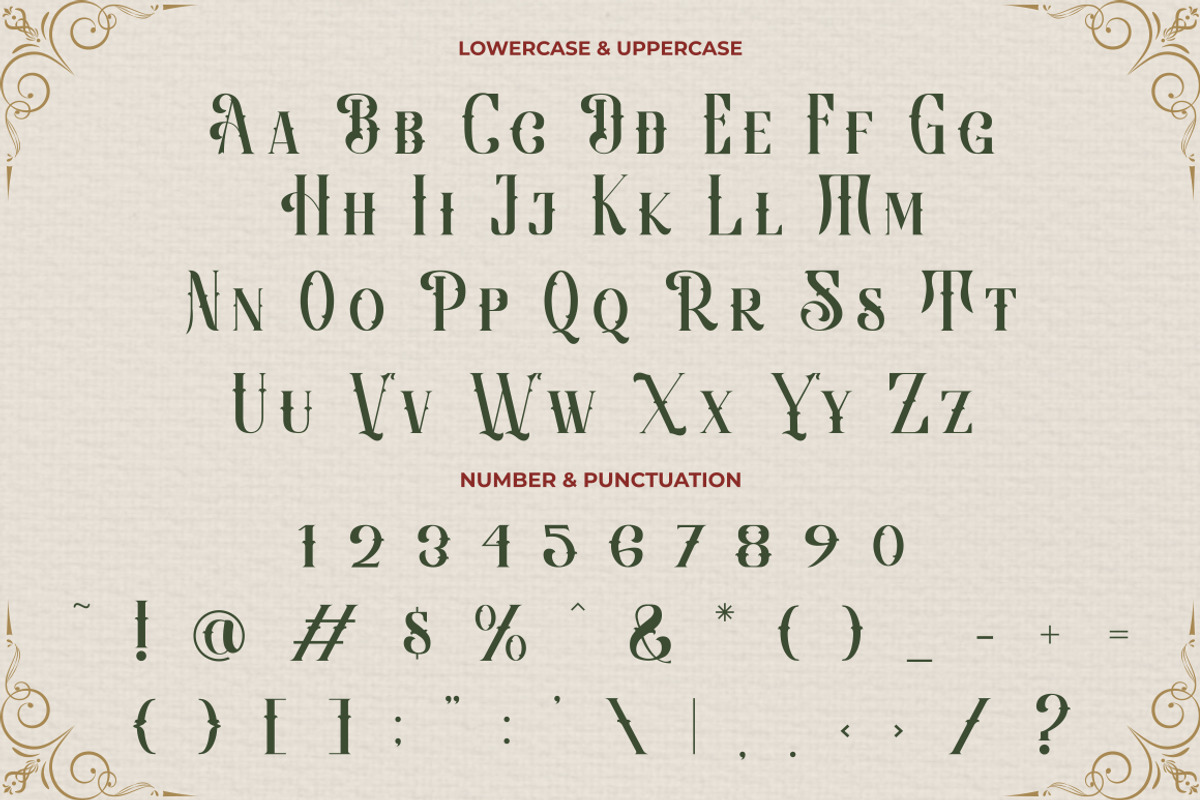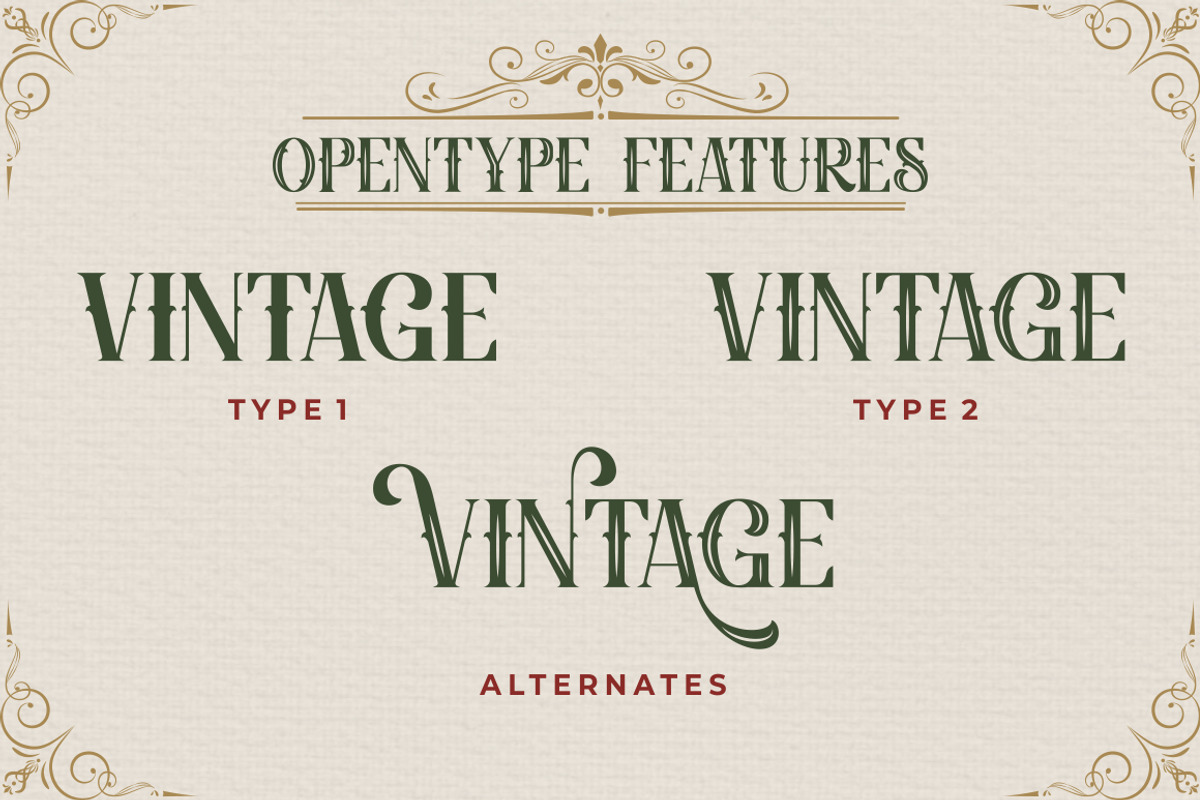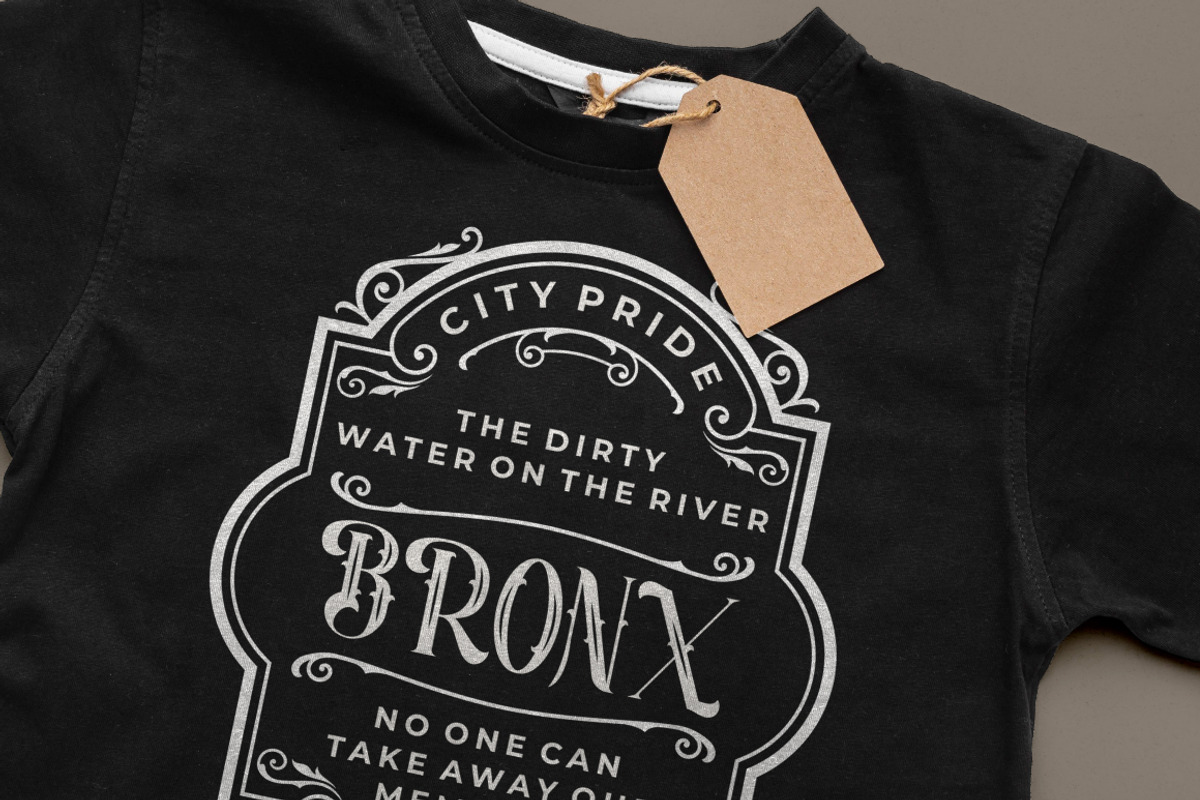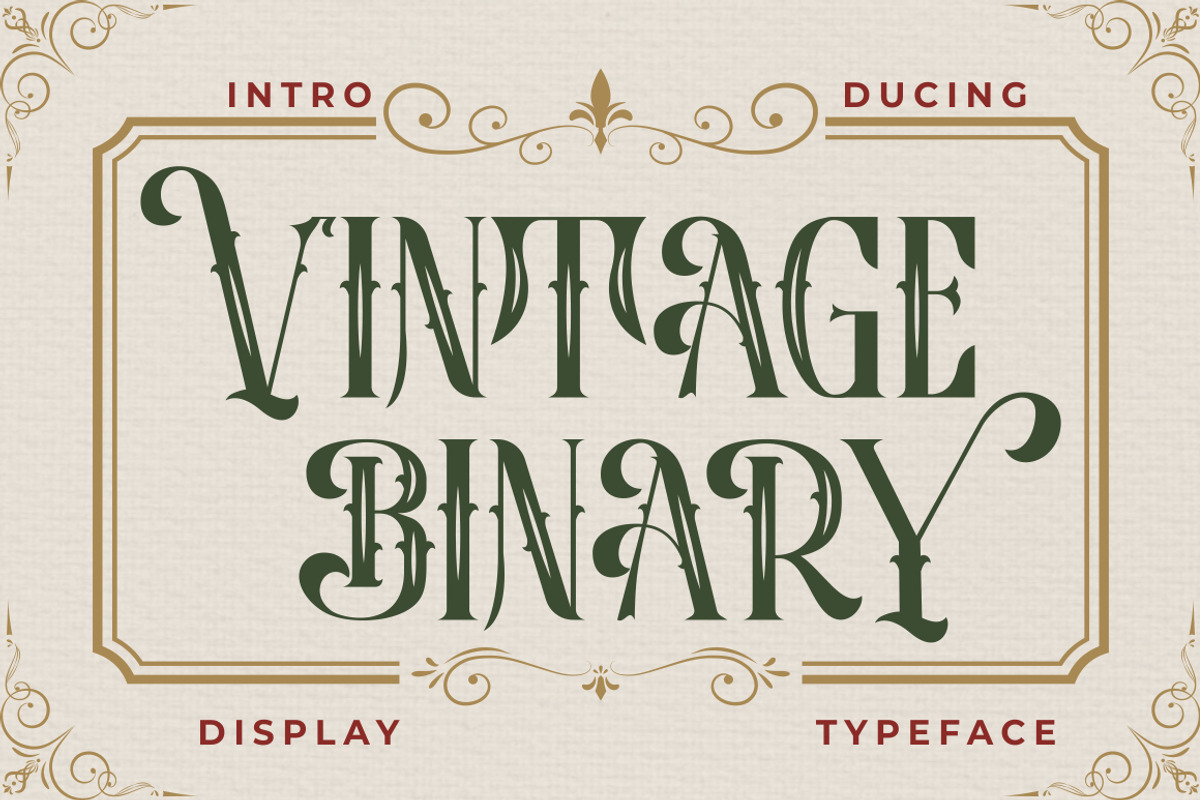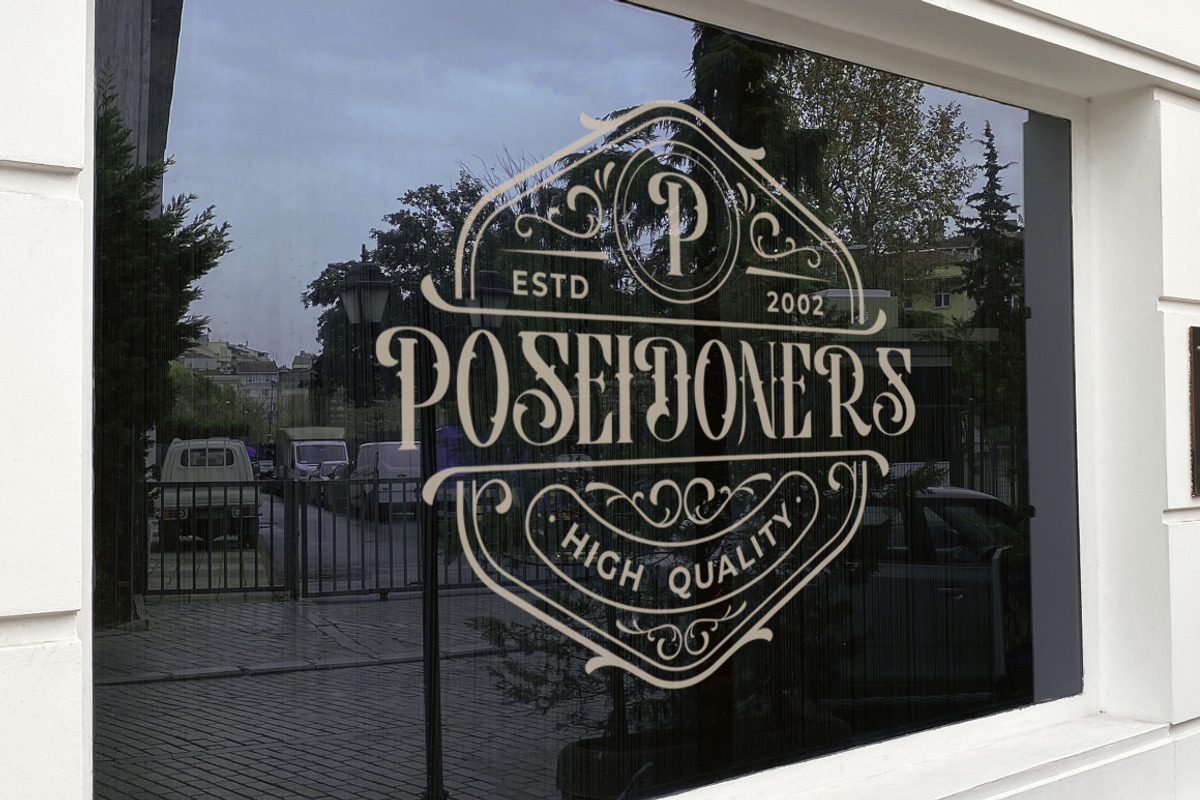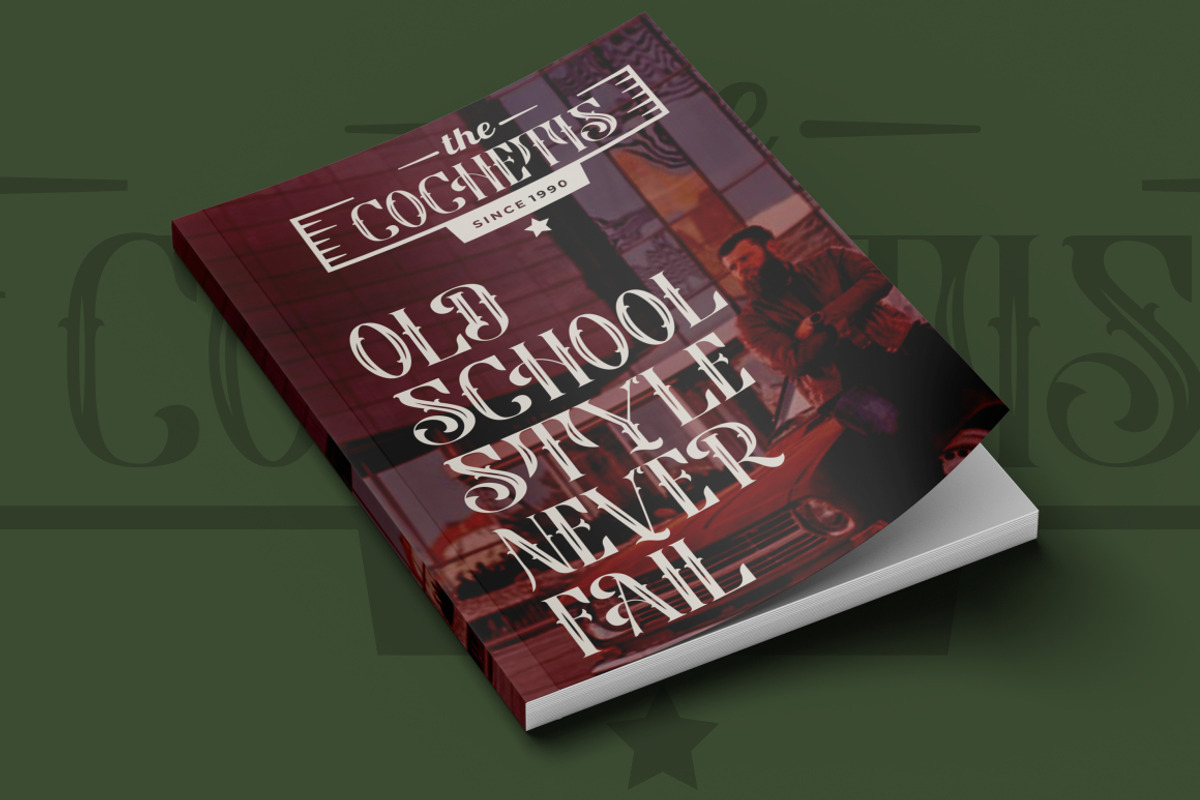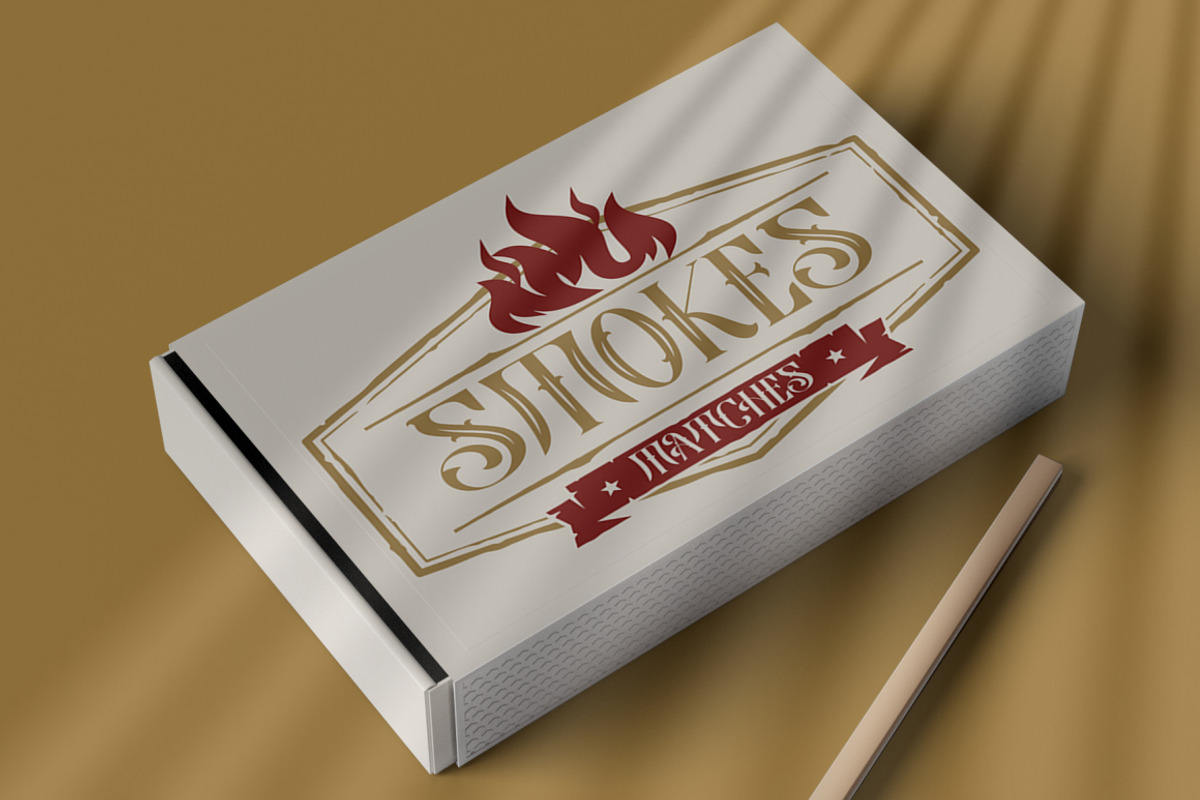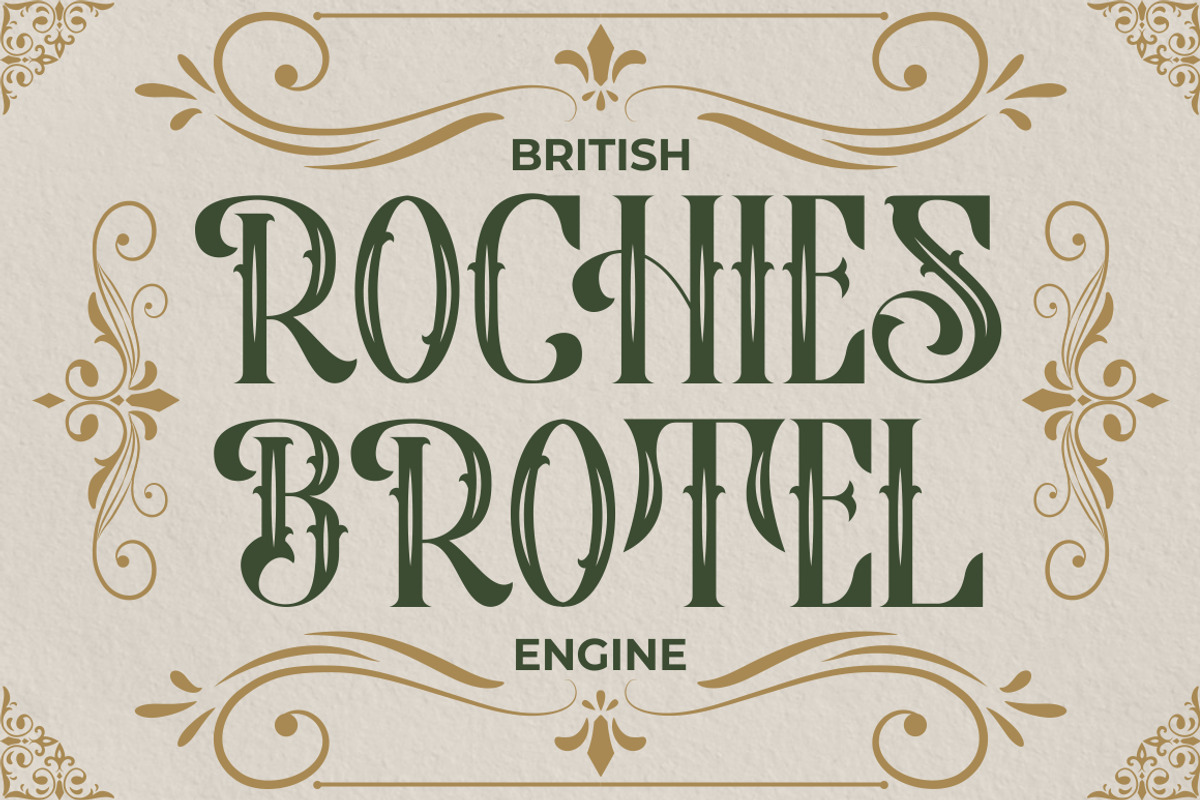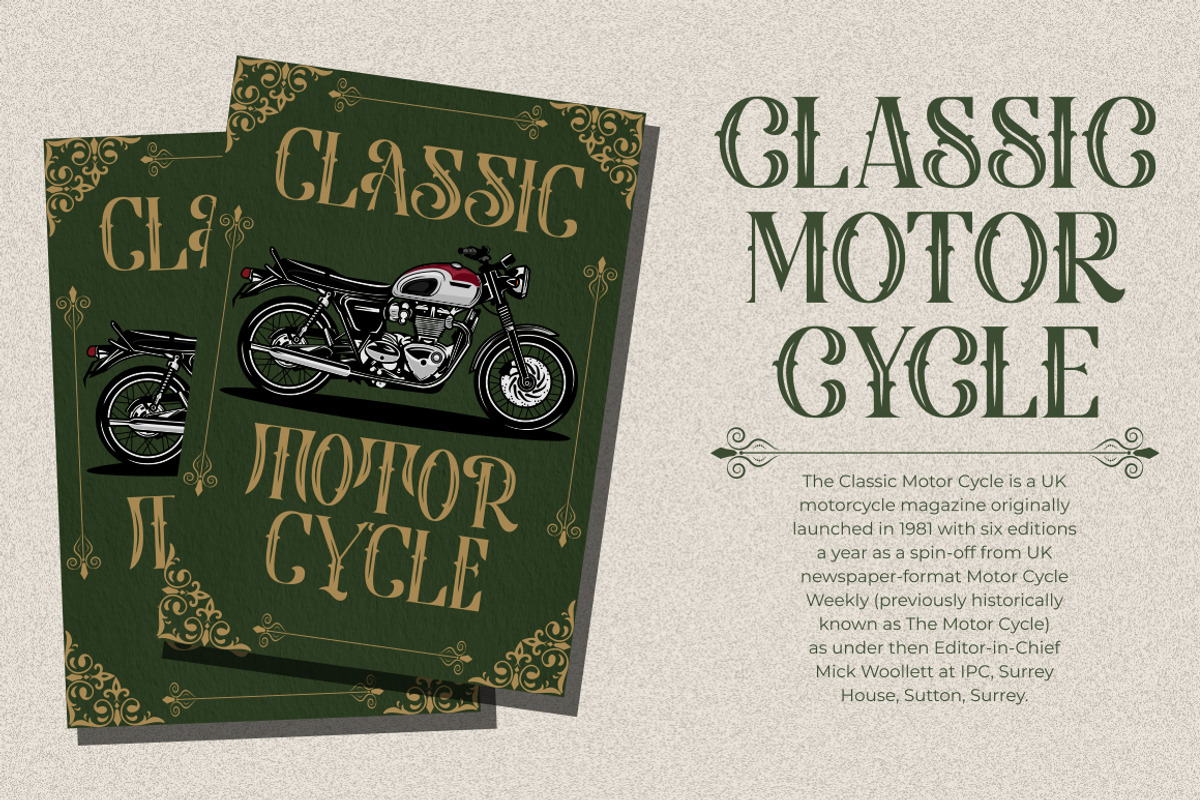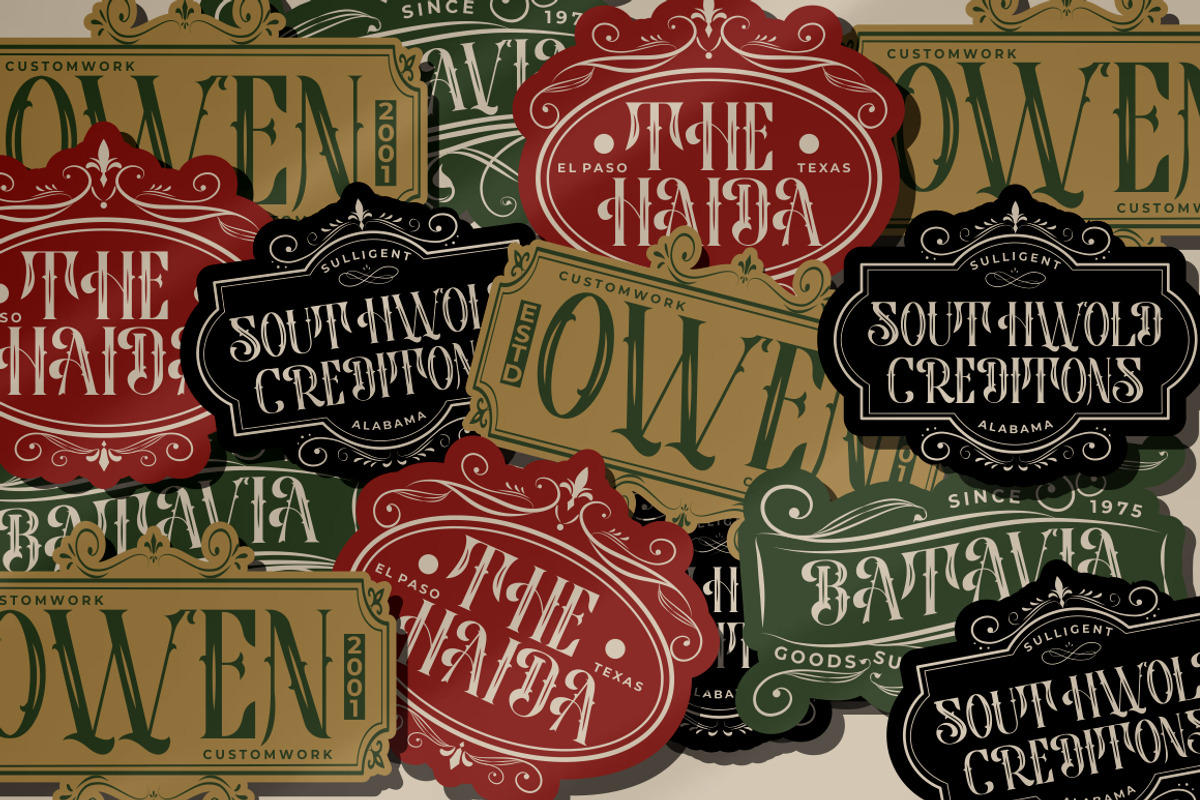
Vintage Binary - Display Typeface Fo
Vintage Binary - Display Typeface Font is a captivating font that embodies the essence of vintage and retro aesthetics. With its classic display style, it evokes a sense of nostalgia and adds a touch of ornamental and decorative flair to your designs. This font is a perfect choice for logos, badges, emblems, titles, headlines, posters, branding materials, and more.
The vintage retro style of Vintage Binary brings back the charm and nostalgia of bygone eras. Its classic display design captures the essence of vintage typography, giving your designs a timeless appeal. The font is adorned with ornamental elements and decorative accents, adding an extra layer of visual interest and artistic flair. Whether you're creating a logo for a retro-inspired brand, designing a vintage label, or crafting an eye-catching poster, Vintage Binary is a versatile font that will help you achieve an authentic and visually stunning result.
With Vintage Binary - Display Typeface Font, you can infuse your designs with the vintage charm, retro vibes, and artistic details that will capture attention and make a lasting impression.